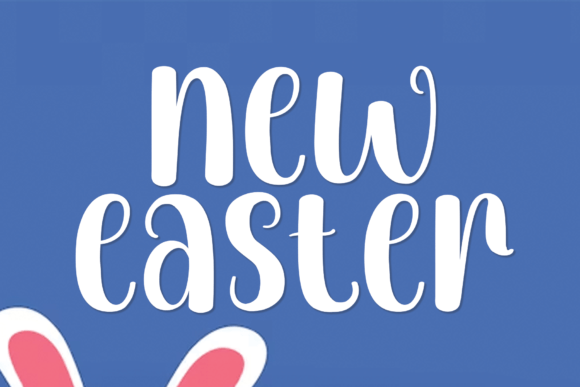
Introducing New Easter Font, the latest addition to our script font family. Created by the talented William Jhordy, this font is the perfect choice for anyone looking to add a personal touch to their project.
Are you looking for the best fonts for wedding logos? Look no further! New Easter Font boasts flowing lines and charming details that bring a playful element to any design. Its attractive and cute handwritten style is sure to captivate your audience and make your project stand out.
Don't settle for ordinary fonts. Take your design game to the next level with New Easter Font. Whether you're creating wedding invitations, greeting cards, or social media graphics, this font is versatile enough to suit any project.